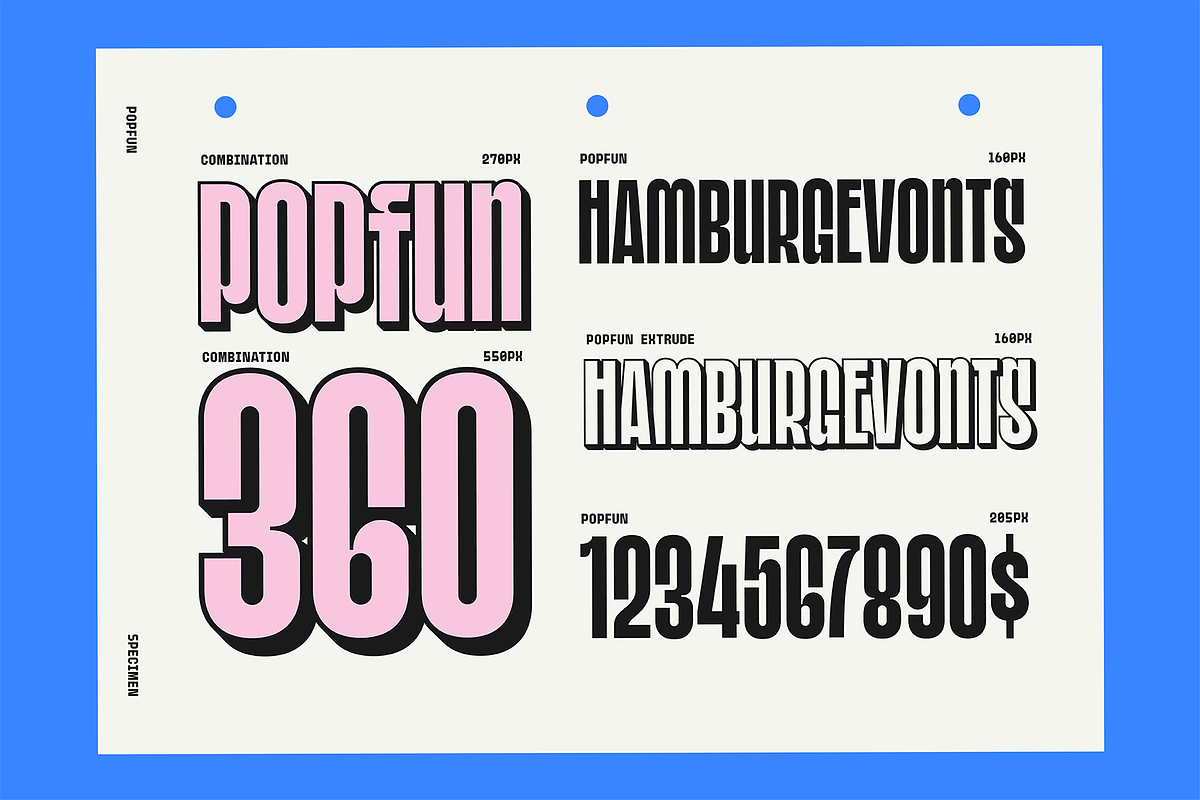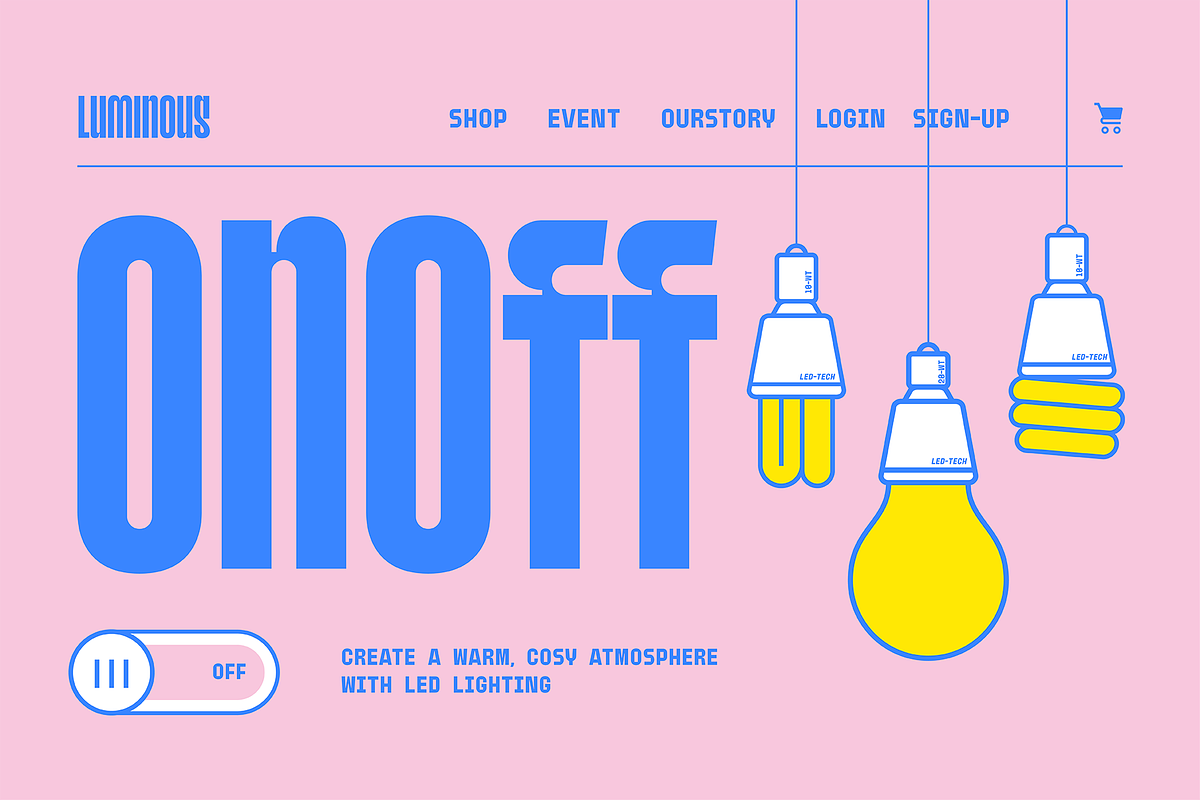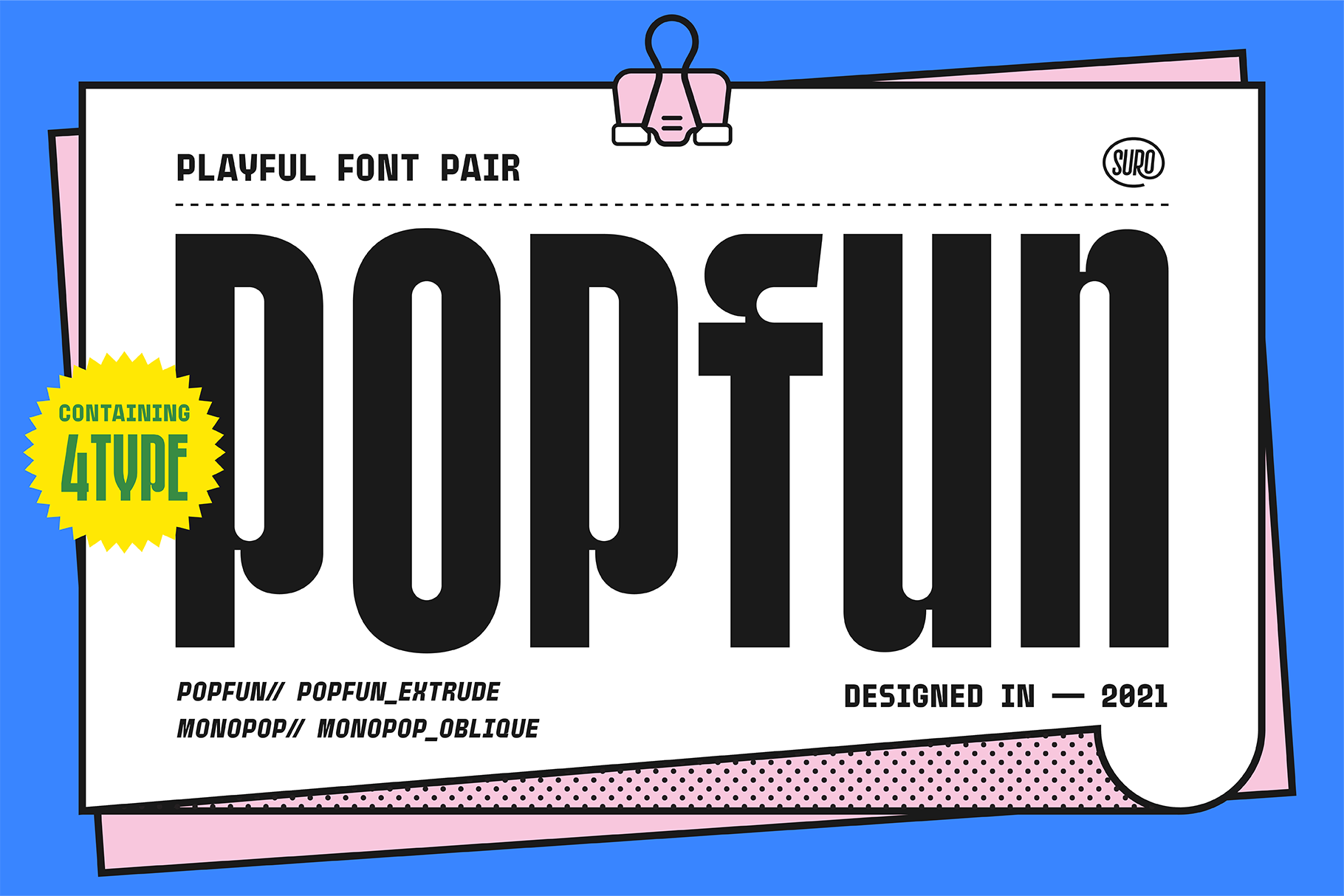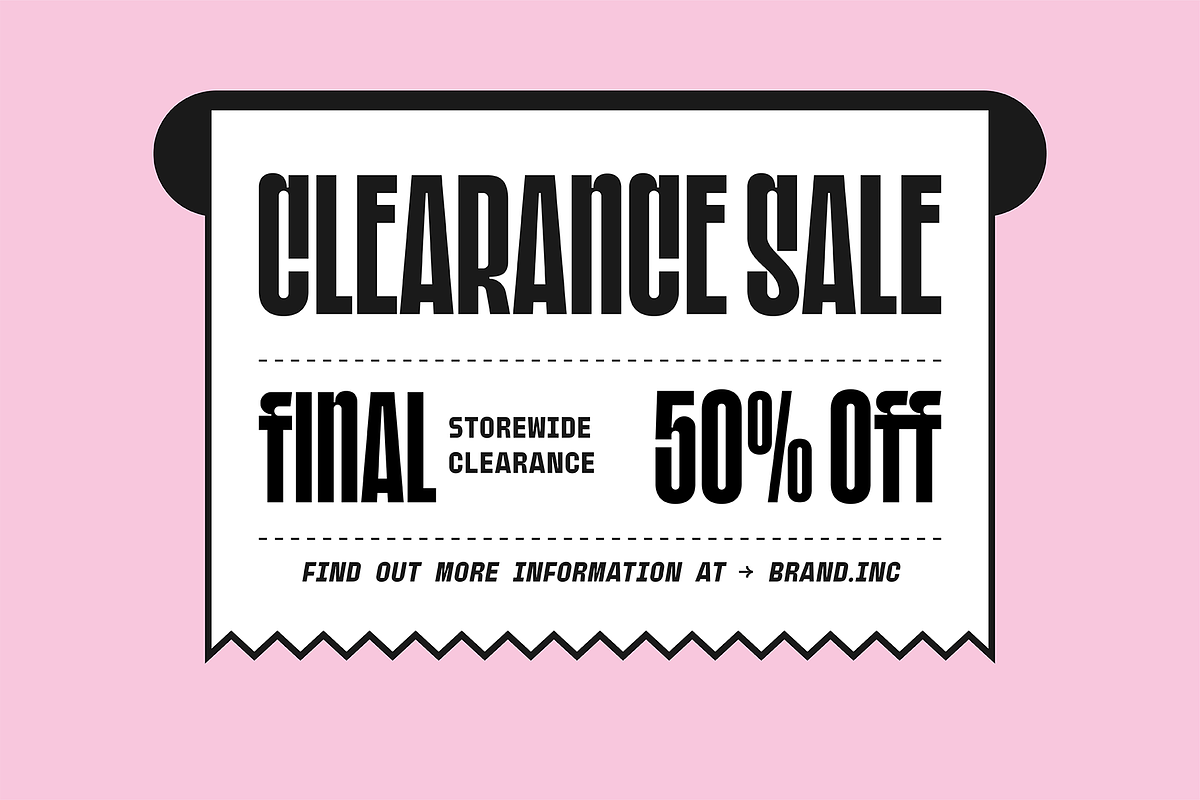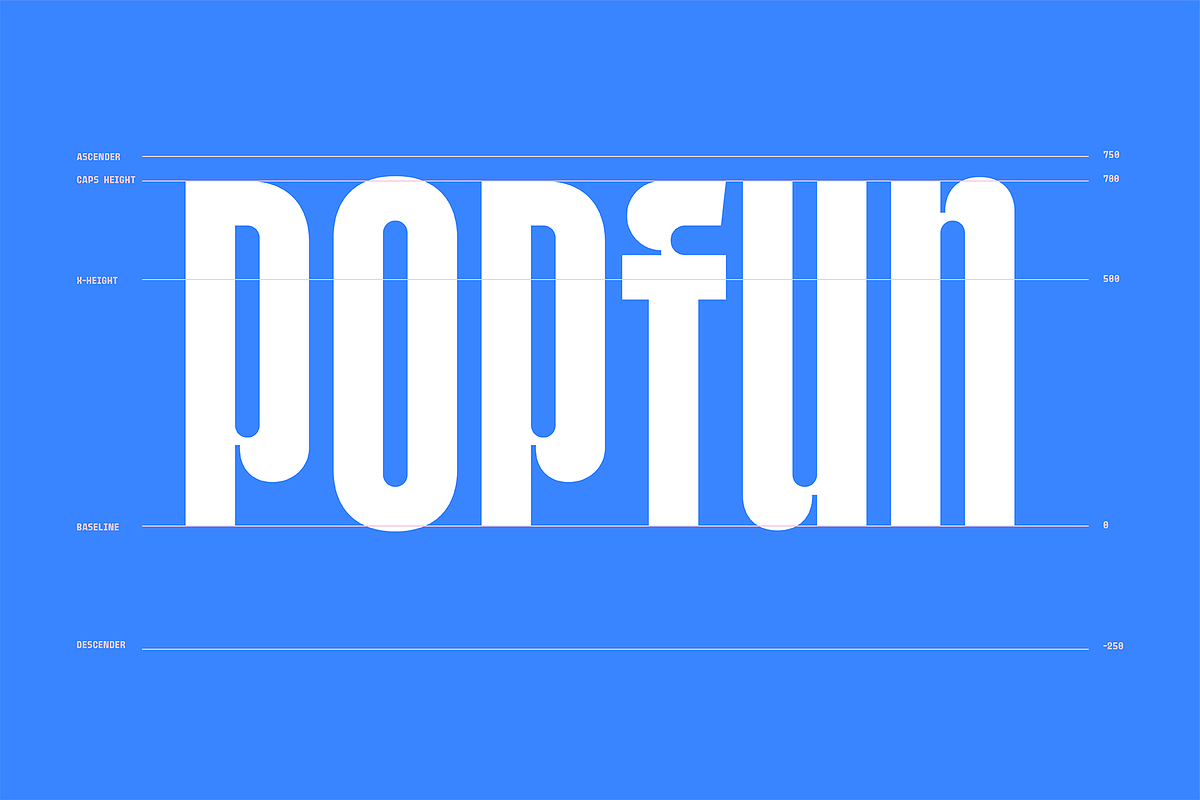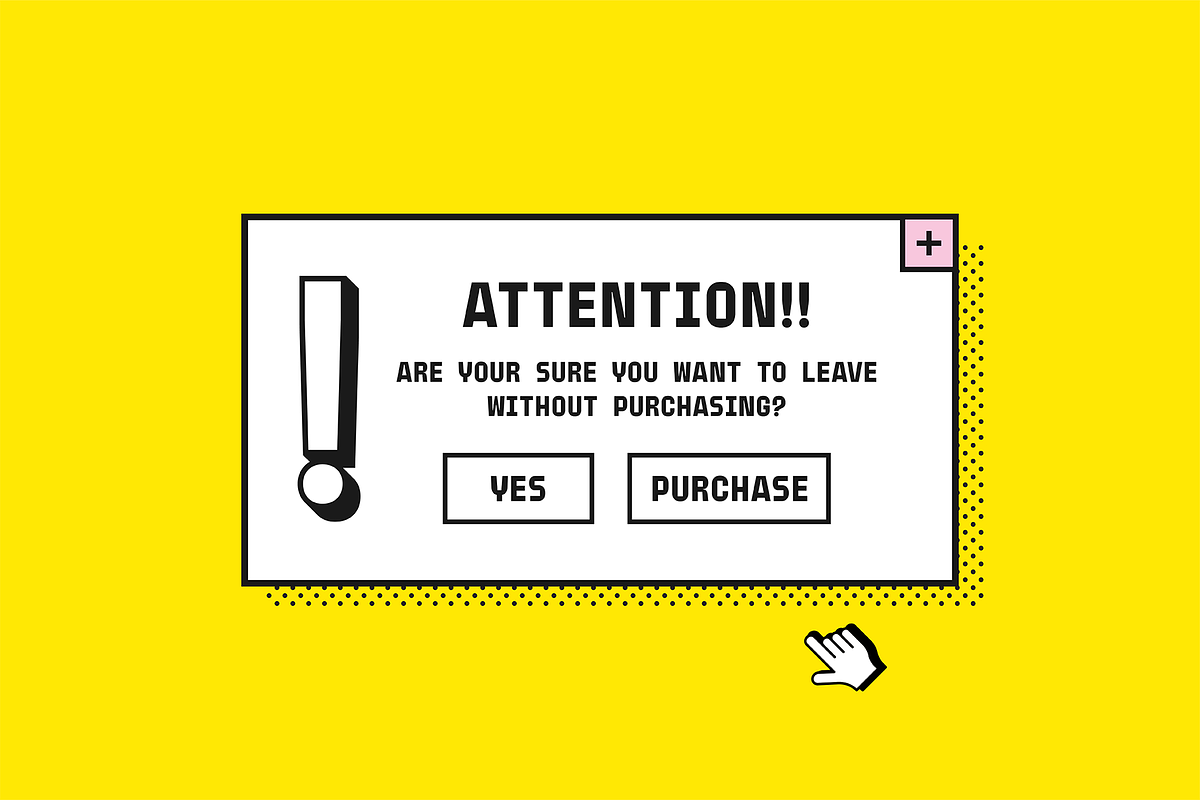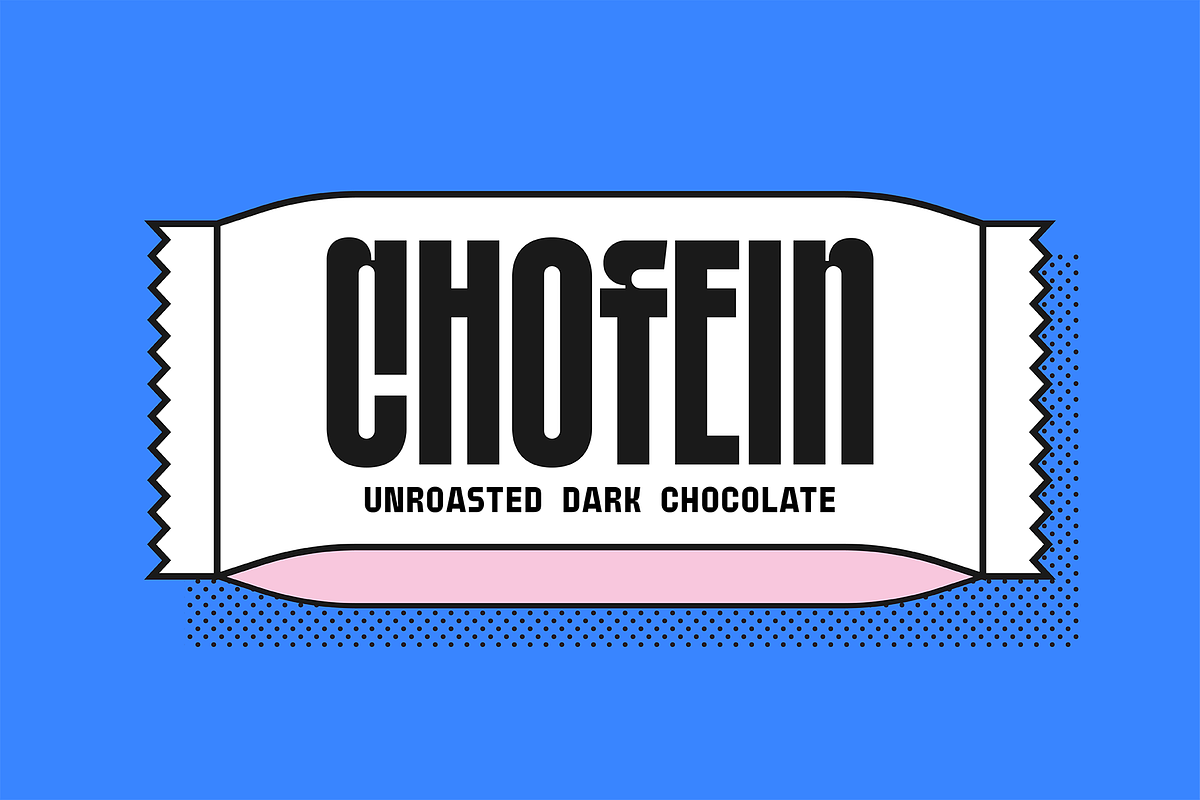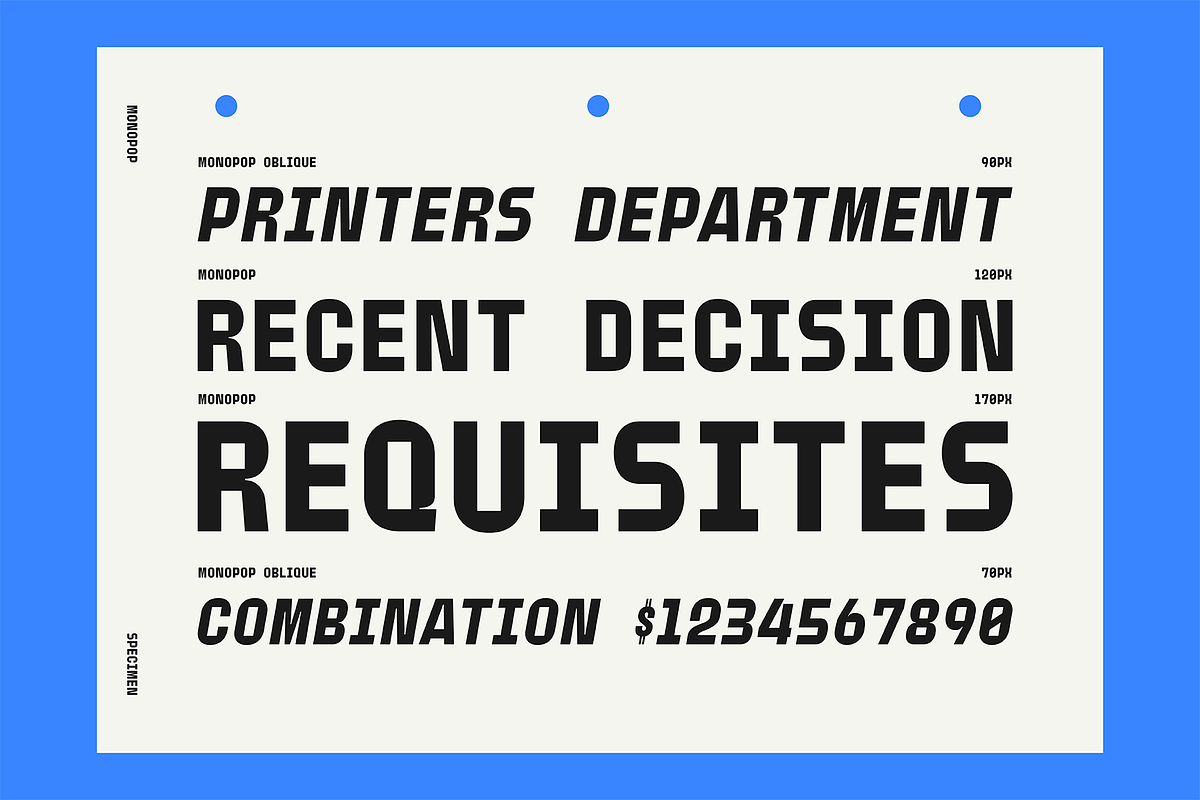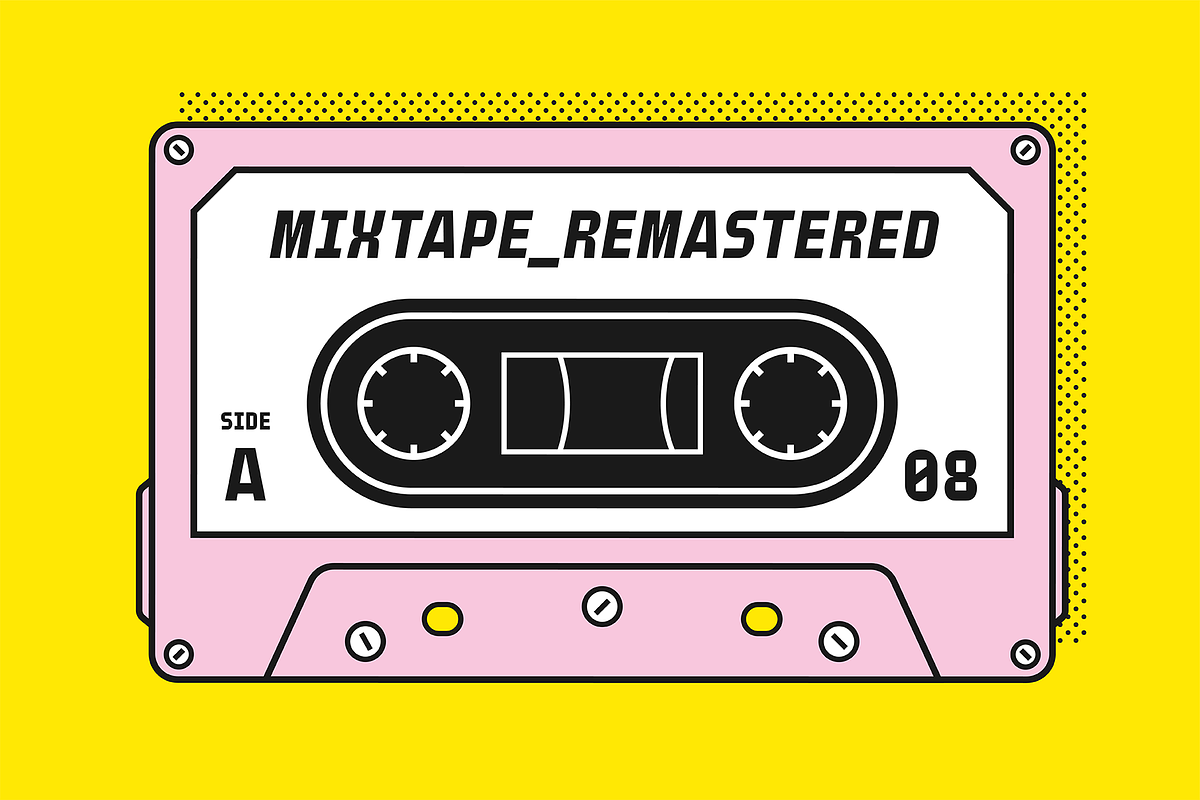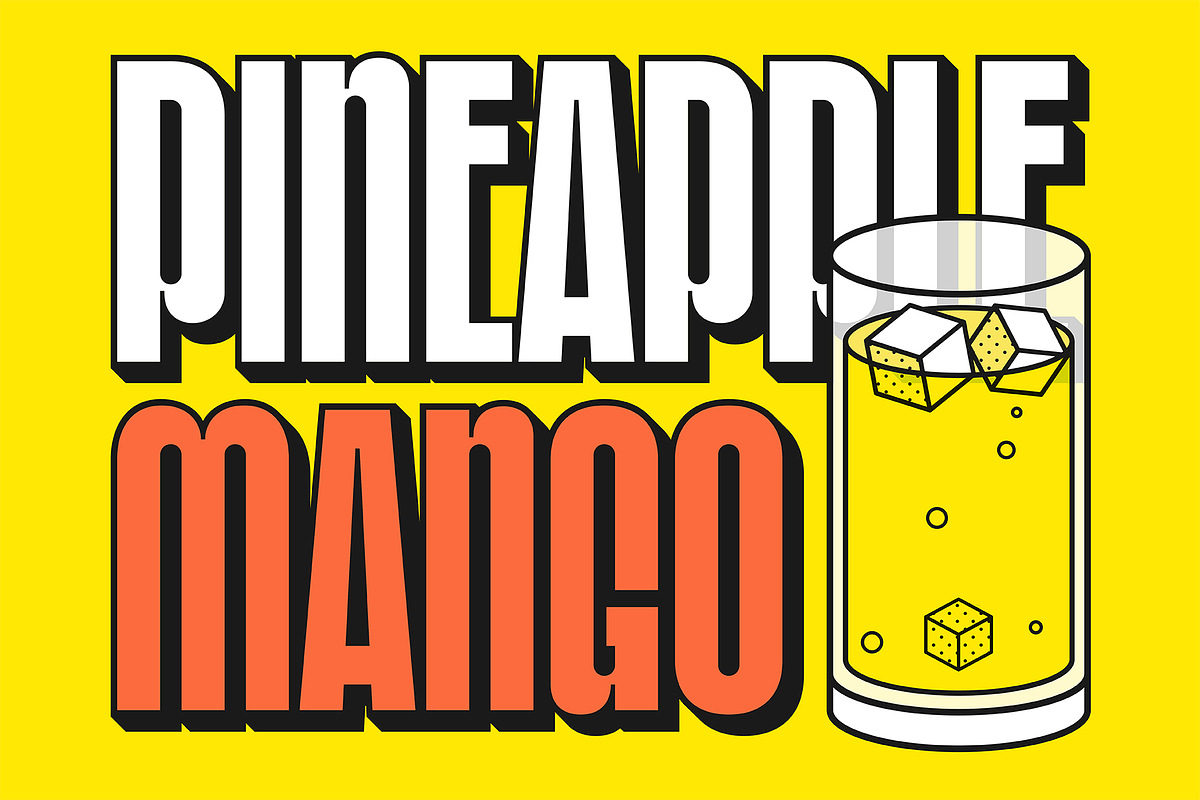
POPFUN - Font Duo
Popfun is a display typeface with playful taste. It comes in two different styles, normal and extrude paired with a mono style, this font fits perfectly.
Really playful font pair to make it easier for you creative work such as — branding, film titles, packaging, advertising, posters, and web or app.